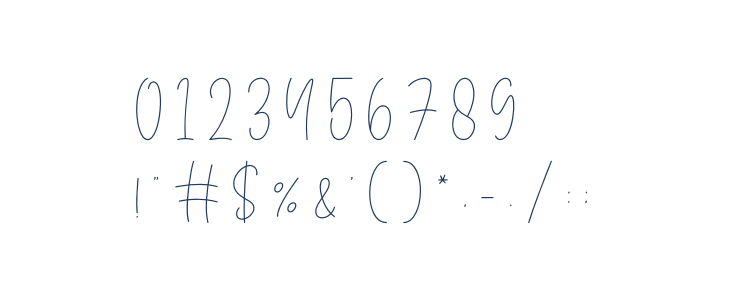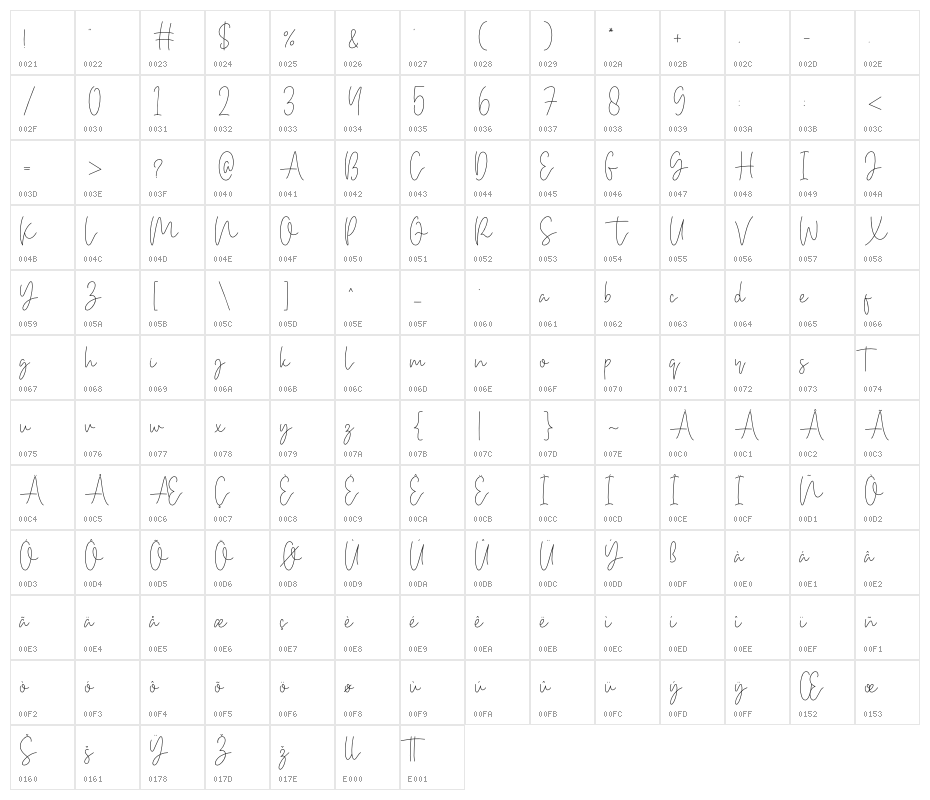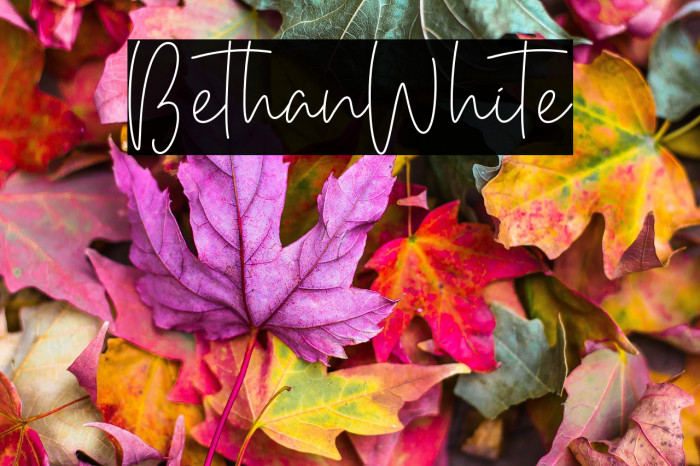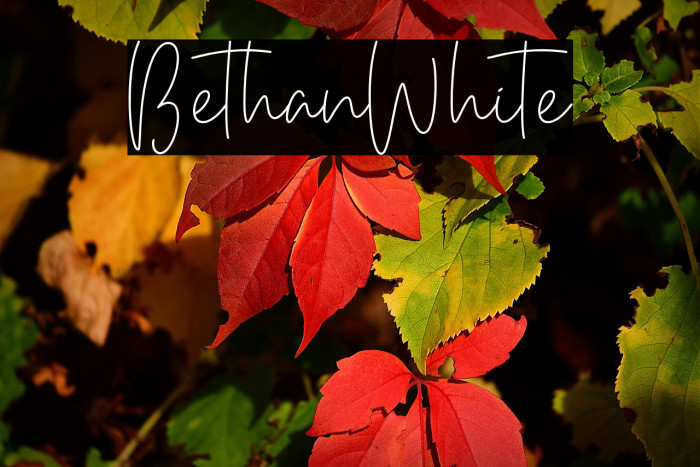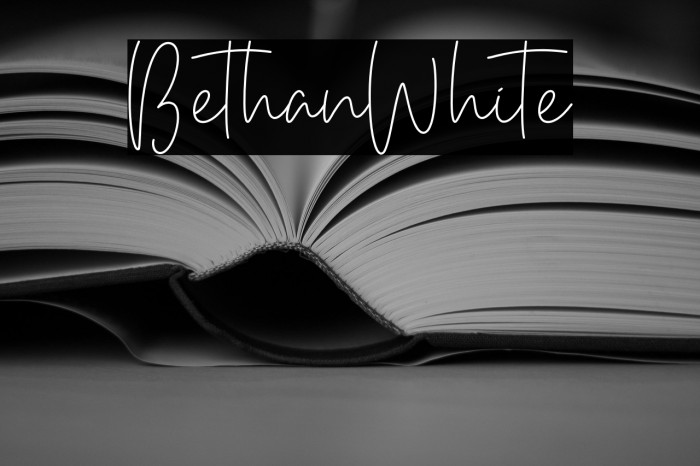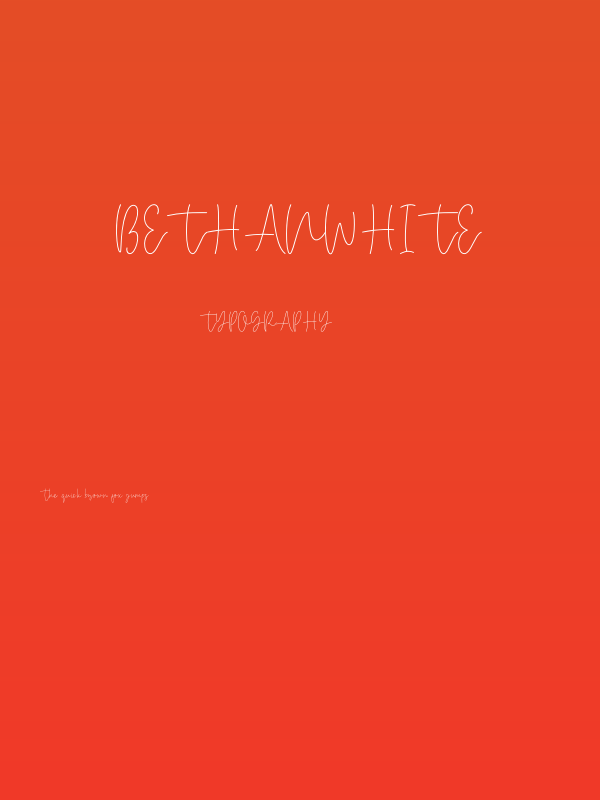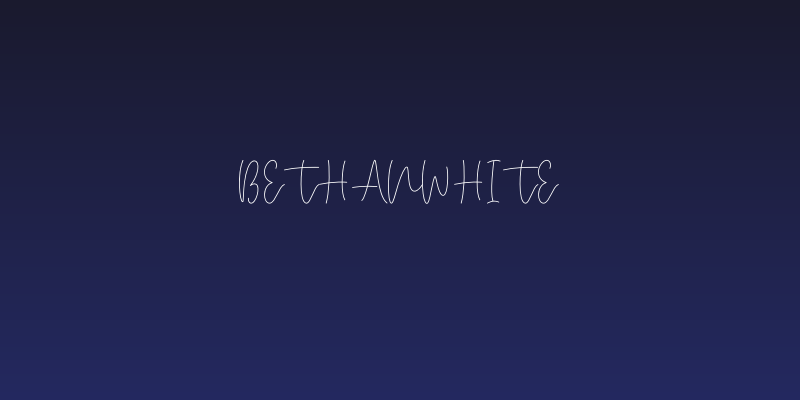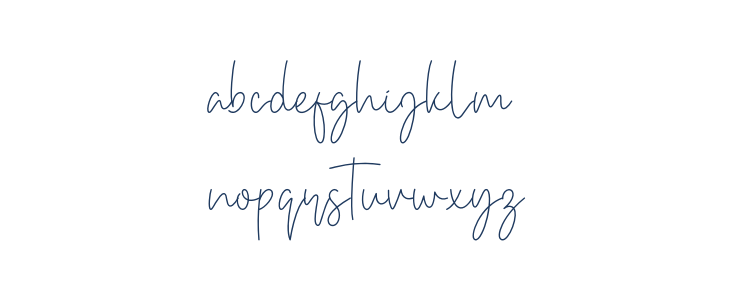
BethanWhite Font
BethanWhite Description
This font features a delicate and flowing handwritten style, characterized by its elegant and fluid strokes. The letters are connected in a cursive manner, giving it a personal and intimate feel. The uppercase letters maintain a consistent height, while the lowercase letters exhibit a slight variation in size, adding to its organic appearance. The numerals are clear and legible, matching the overall aesthetic of the alphabet. Special characters are seamlessly integrated, maintaining the font's cohesive look. This font is perfect for projects that require a touch of elegance and personality.
| Overall Style | Elegant, Personal, Intimate |
| Use Case | Logos, Invitations, Personal Branding |
| Proposed Projects | Ideal for wedding invitations, personal branding, greeting cards, and elegant stationery. |